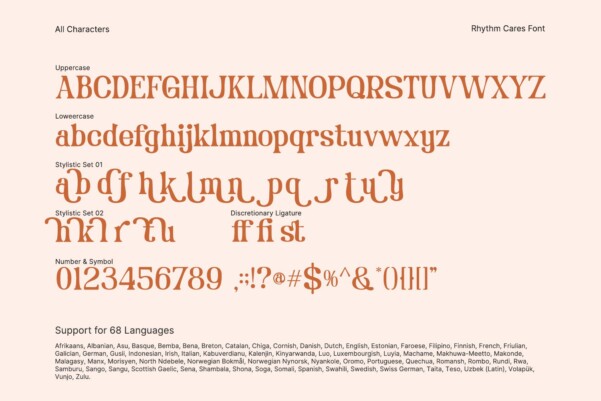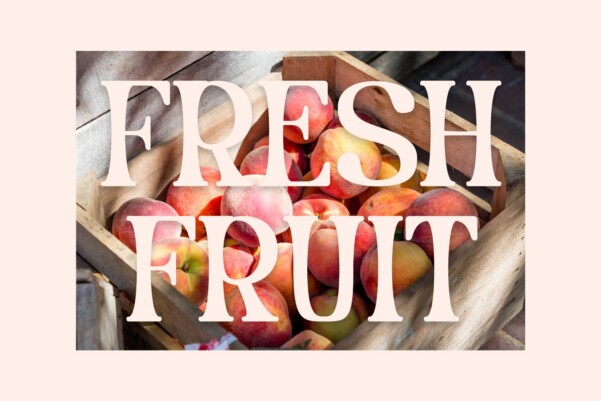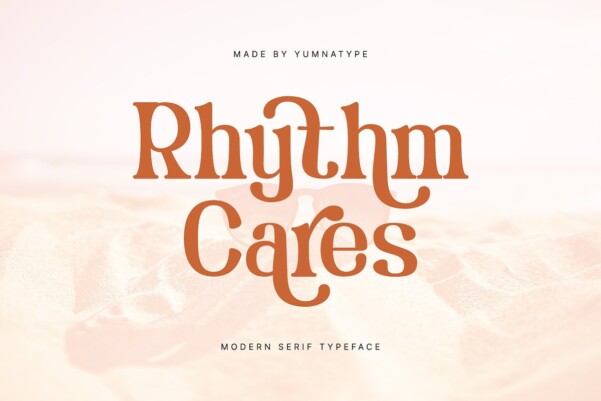
Rhythm Cares Font
Designer: yumnatype
Rhythm Cares Font is a captivating serif font that dances across the page with modern elegance and style. Crafted with meticulous attention to detail, RhythmCares is made with sleek lines, subtle curves, and balanced proportions that create a harmonious rhythm on the page. Each letter is designed to flow seamlessly into the next, creating a sense of fluidity and movement that captures the eye and engages the viewer.
Despite its classic serif roots, Rhythm Cares is anything but traditional. With its modern style and contemporary flair, this font adds a touch of vibrancy and energy to any design project.